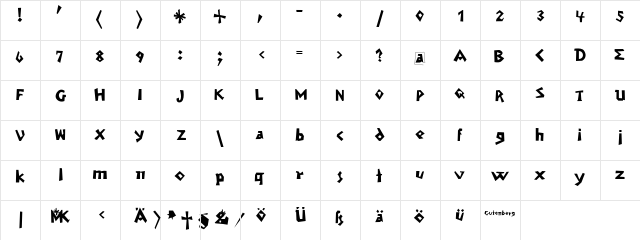
MendelsohnsTochter Regular
Design Context for MendelsohnsTochter Typeface
MendelsohnsTochter is a composed and adaptable typeface that performs quietly and consistently across a wide range of design contexts.